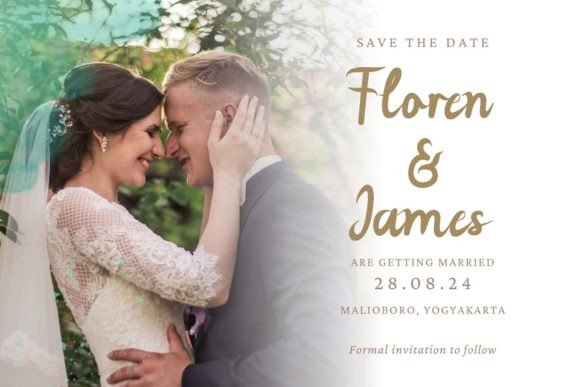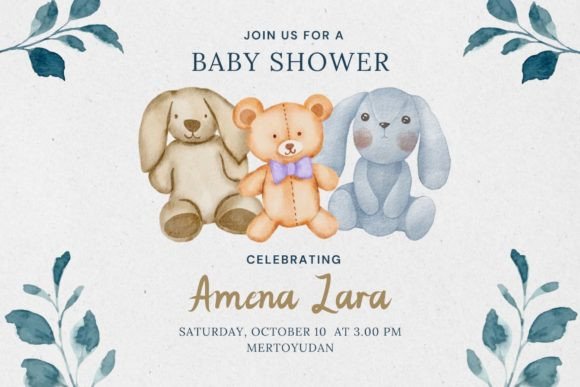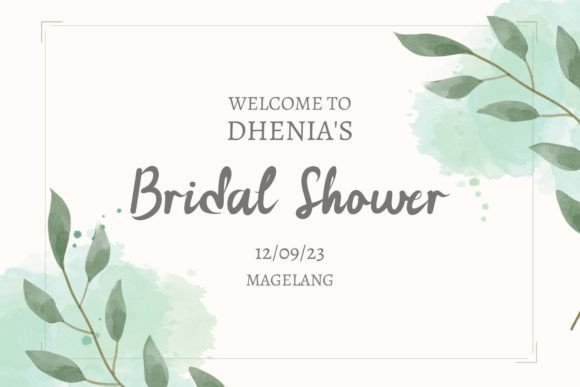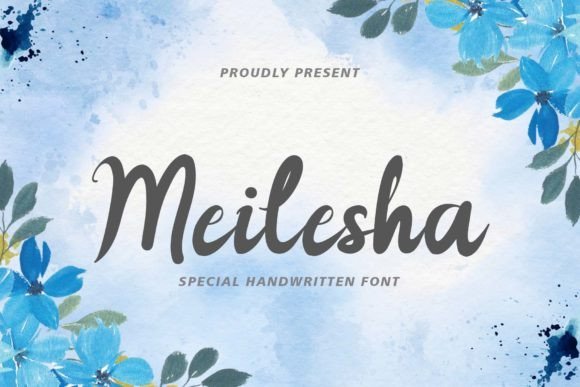
Introduction to Meilesha Font
Meilesha is a unique and beautiful handwritten font.
This font is equipped with uppercase, lowercase, numerals, punctuations, and multilingual support It is suitable for invitations, weddings, ornaments, logos, banners, posters, prints, branding, and others.
Meilesha Font offers exceptional quality and versatility, making it a valuable addition to your design toolkit. Whether you’re creating for personal projects or commercial use, Meilesha Font delivers professional results.